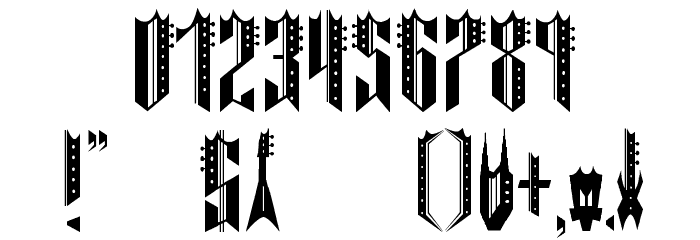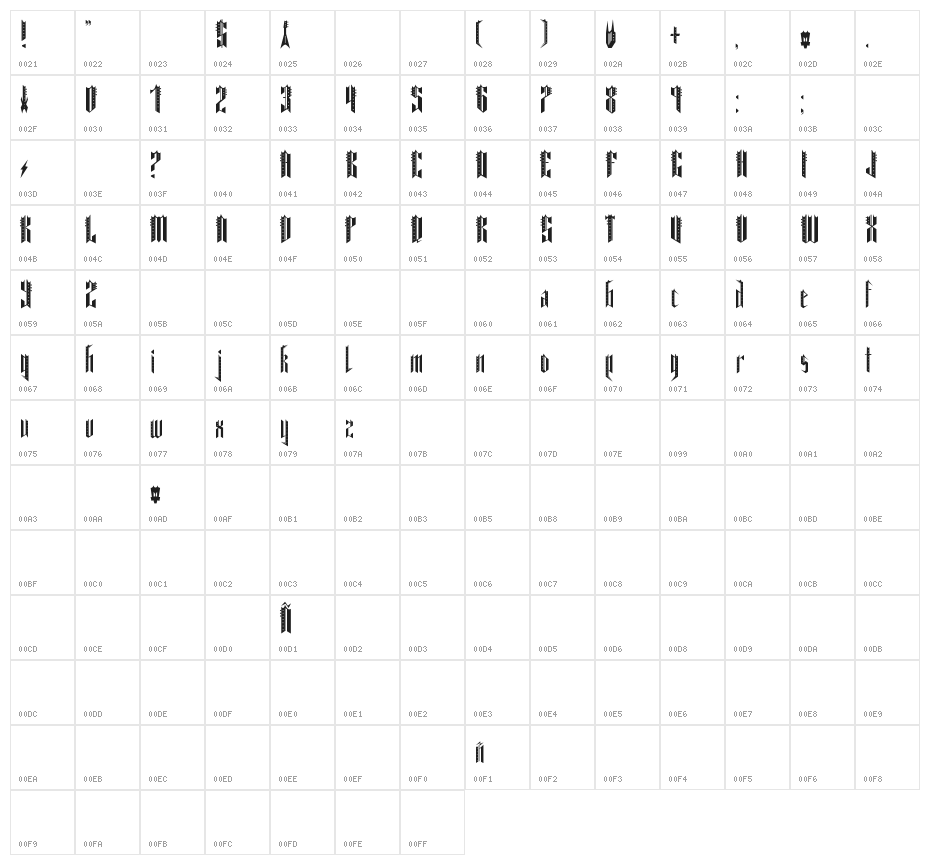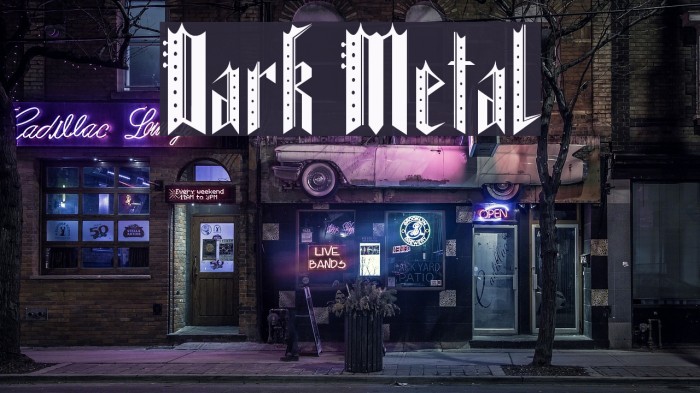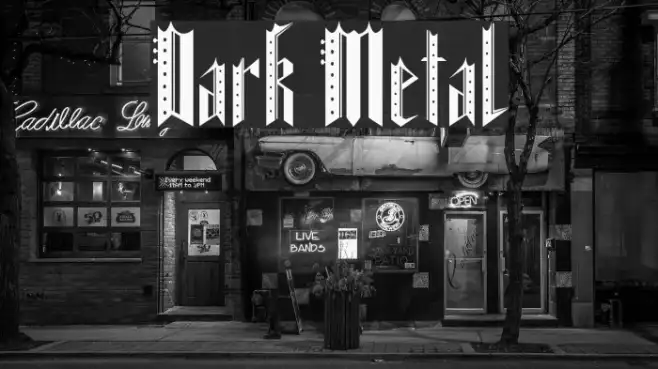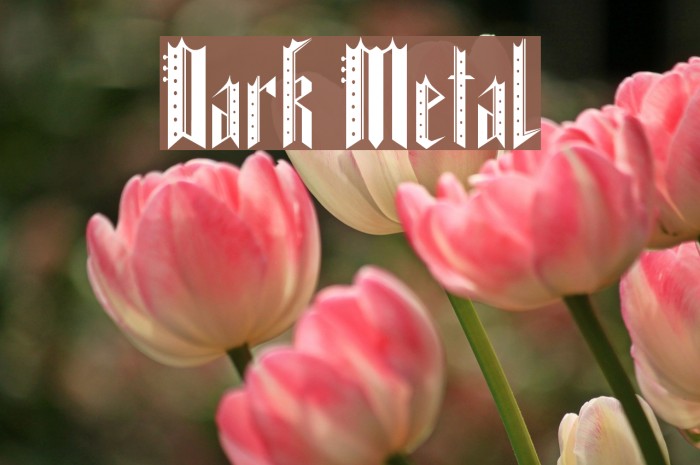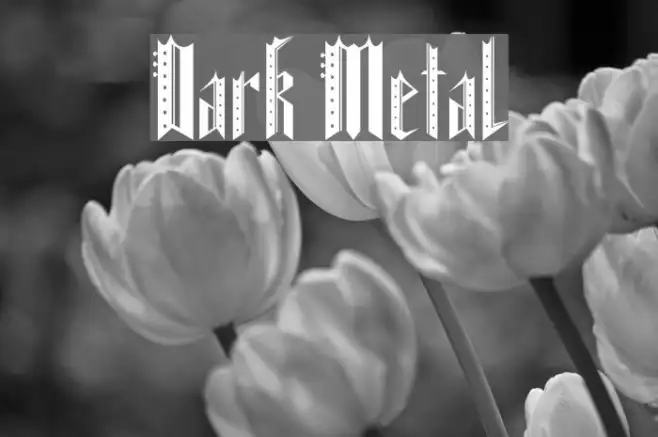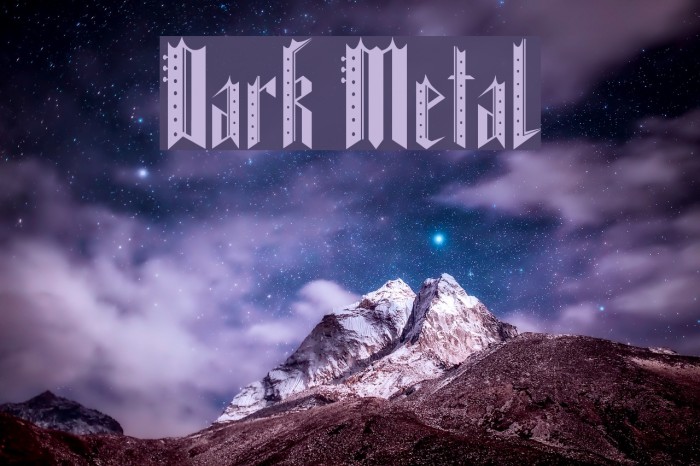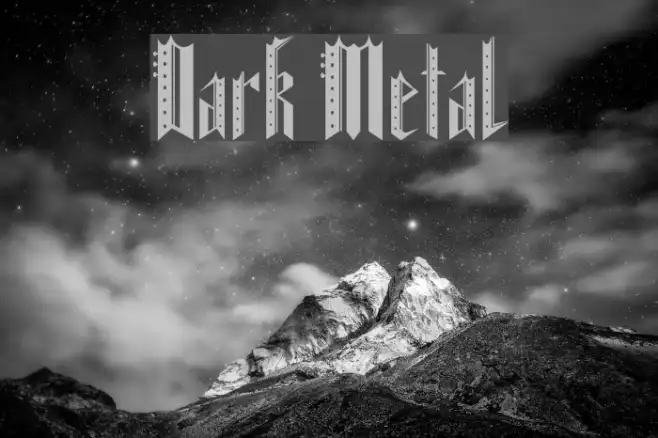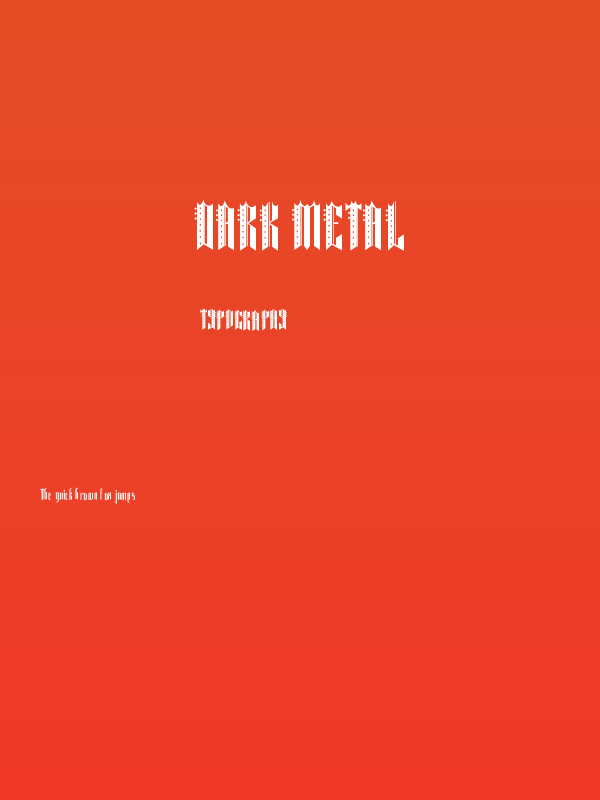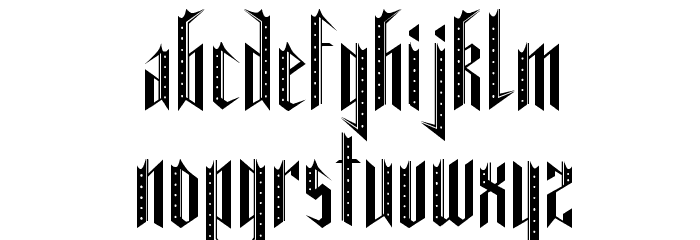
Dark Metal Font
Dark Metal Description
This font embodies a bold and edgy aesthetic, reminiscent of heavy metal and gothic styles. The characters are sharply angular with a distinct medieval influence, featuring pointed serifs and intricate detailing. The uppercase letters are particularly striking, with a tall and narrow form that commands attention. The lowercase letters maintain the same sharpness, providing a cohesive look across the typeface. Numbers and special characters are equally stylized, adding to the overall dramatic effect. This font is perfect for projects that require a strong, rebellious vibe, such as band logos, album covers, or event posters.
| Overall Style | Gothic, Edgy, Dramatic |
| Use Case | Logos, Posters, Headlines |
| Proposed Projects | Ideal for band logos, album covers, event posters, and any design needing a strong, rebellious aesthetic. |